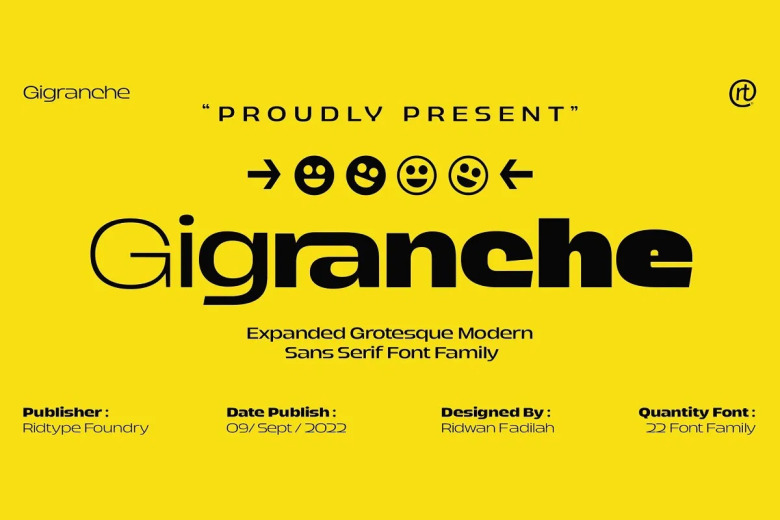
Gigranche Font
Gigranche font family is Expanded Grotesque Modern Sans Serif. This font will be perfect of casses for Digital manufacture / printing. This font is great for streetwear (courage, art & strength). named : Urbanstreet → Some symbols and few fractional numbers and additional glyps from other languages supported by this font (See Multilingual Support).
Gigranche Sans Serif Font Family